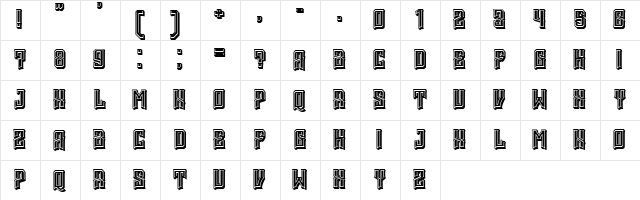
Mina is gone 3D Regular
| Designer | Valdimir Nikolic |
Design Context for Mina is gone 3D Typeface
Mina is gone 3D is a composed and adaptable typeface that performs quietly and consistently across a wide range of design contexts.